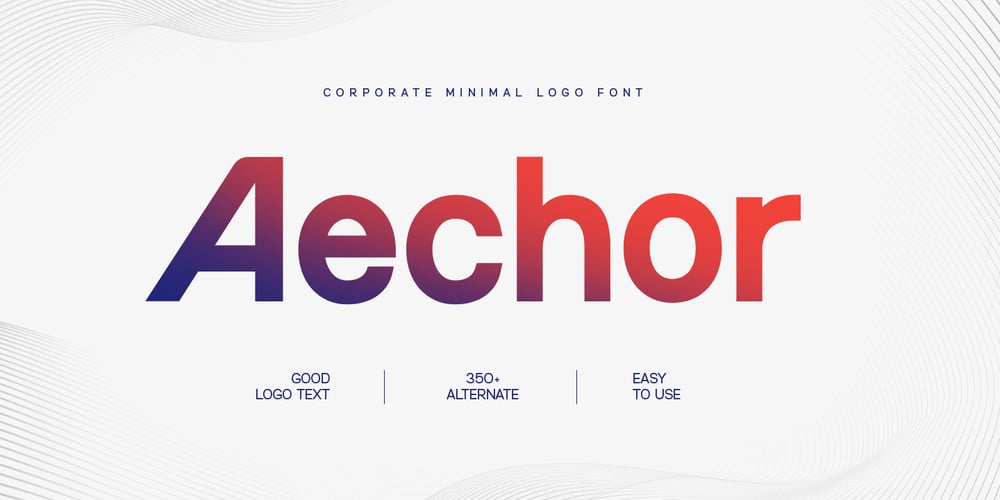
Aechor Font Family was designed by Zamroni Hamzah and published by Sensatype Studio. Aechor contains 3 styles and family package options. Introducing Aechor, a font designed to bring a modern and professional touch to your corporate branding. Combining sleek aesthetics with a minimalist approach, Aechor is perfect for creating logos and branding materials that exude sophistication and professionalism.Aechor Font Features: Modern Design: Sleek and minimalist, ideal for corporate and business use. Professional Aesthetics: Clean lines and elegant curves that convey sophistication. Versatile Usage: Perfect for logos, business cards, corporate presentations, and office materials. Multiple Formats: Available in 4 formats for all your design needs. High Legibility: Clear and easy to read, ensuring your message is communicated effectively. Elegant Simplicity: Combines modern style with a professional look. Inspirational Previews: Includes sample designs to spark your creativity. Perfect For: Corporate Branding: Create sleek and professional logos for businesses and companies. Business Materials: Design elegant business cards, letterheads, and office stationery. Presentations: Develop polished and modern presentations for corporate meetings and pitches. Marketing Materials: Enhance brochures, flyers, and advertisements with a touch of elegance. With Aechor, your corporate designs will achieve a new level of professionalism and style. Whether you’re working on branding, marketing materials, or business presentations, Aechor provides the perfect blend of modern design and corporate sophistication. Elevate your brand with Aechor and make a lasting impression in the business world.